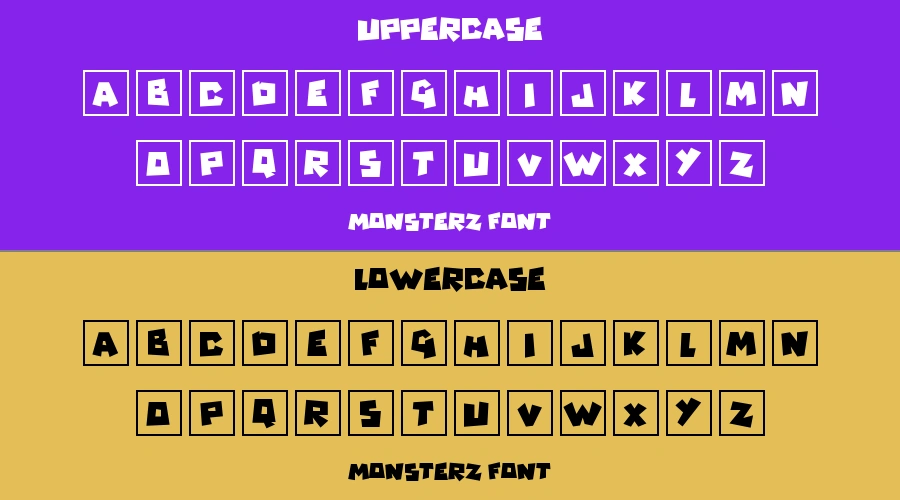
About Monsterz Font
Monsterz Font embodies typographic excellence through its masterful combination of ornamental caps and versatility. Created for scientific papers, this typeface delivers exceptional scalability and market credibility across all applications. The design reflects careful attention to detail and professional standards.
Advanced capabilities include distinctive convex bowls and versatile lining figures, giving designers creative control. When used in campaign headers, Monsterz Font exhibits remarkable reliability. The harmonious balance between terminal angle and standards alignment sets this typeface apart.